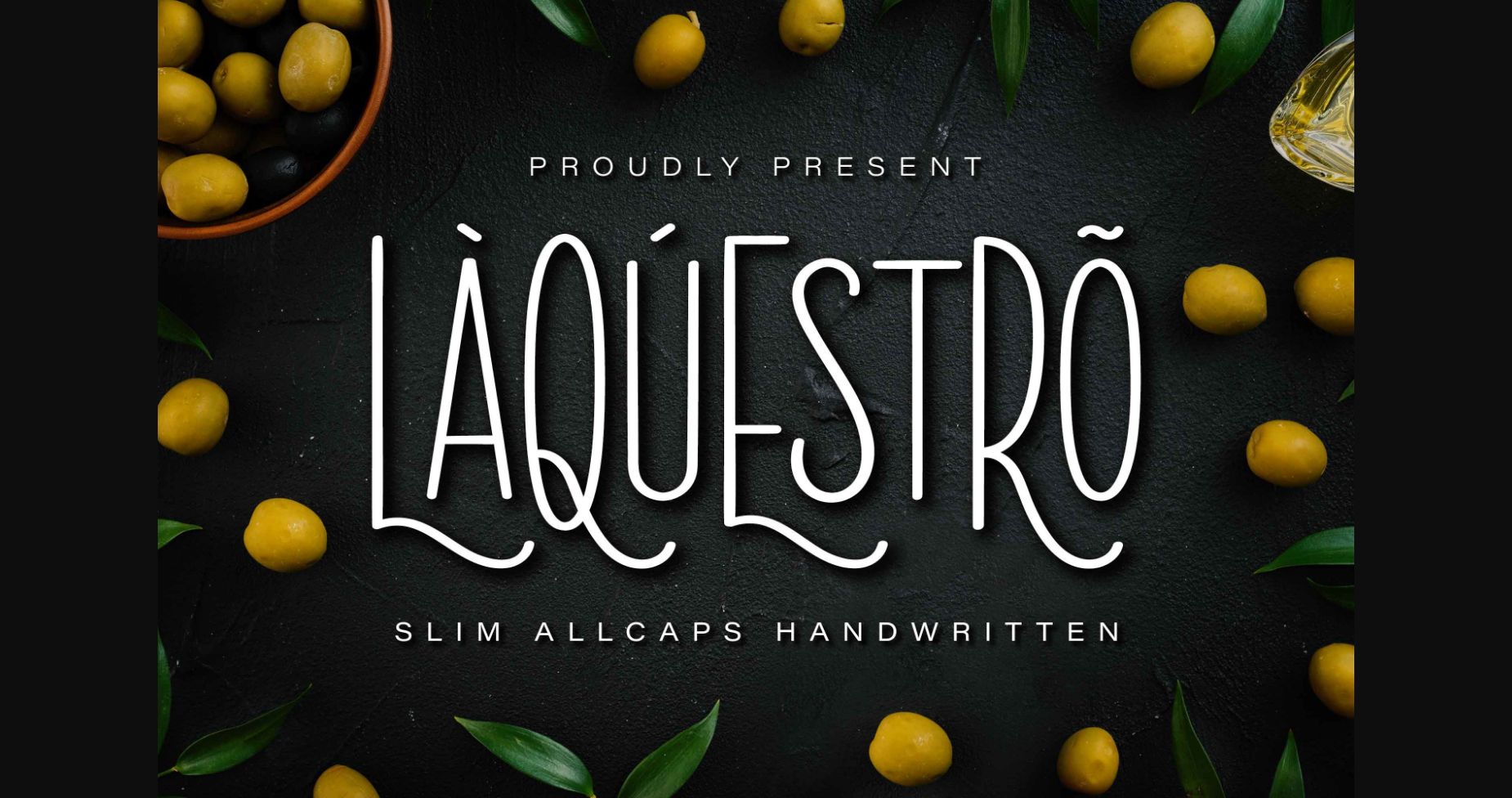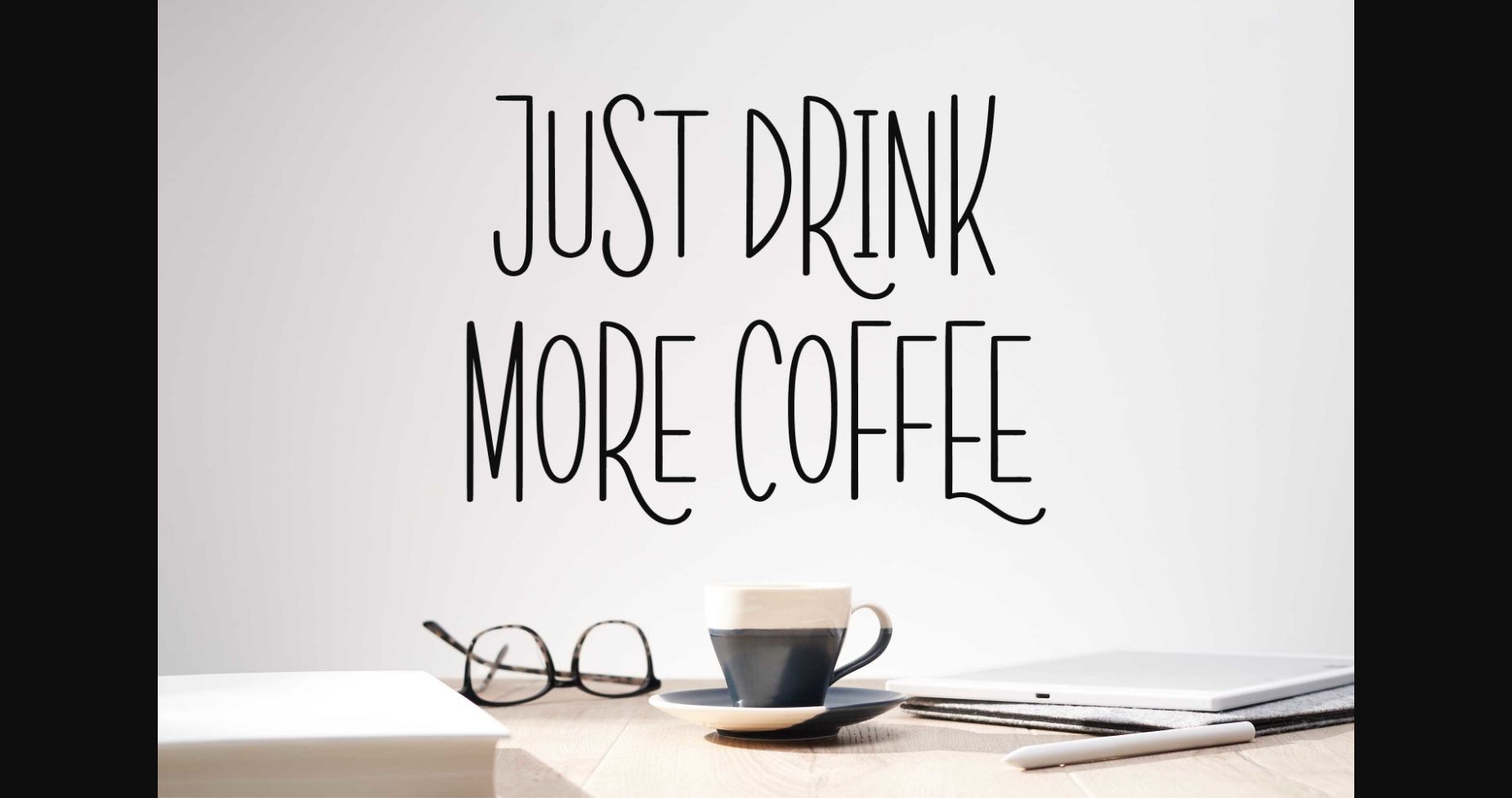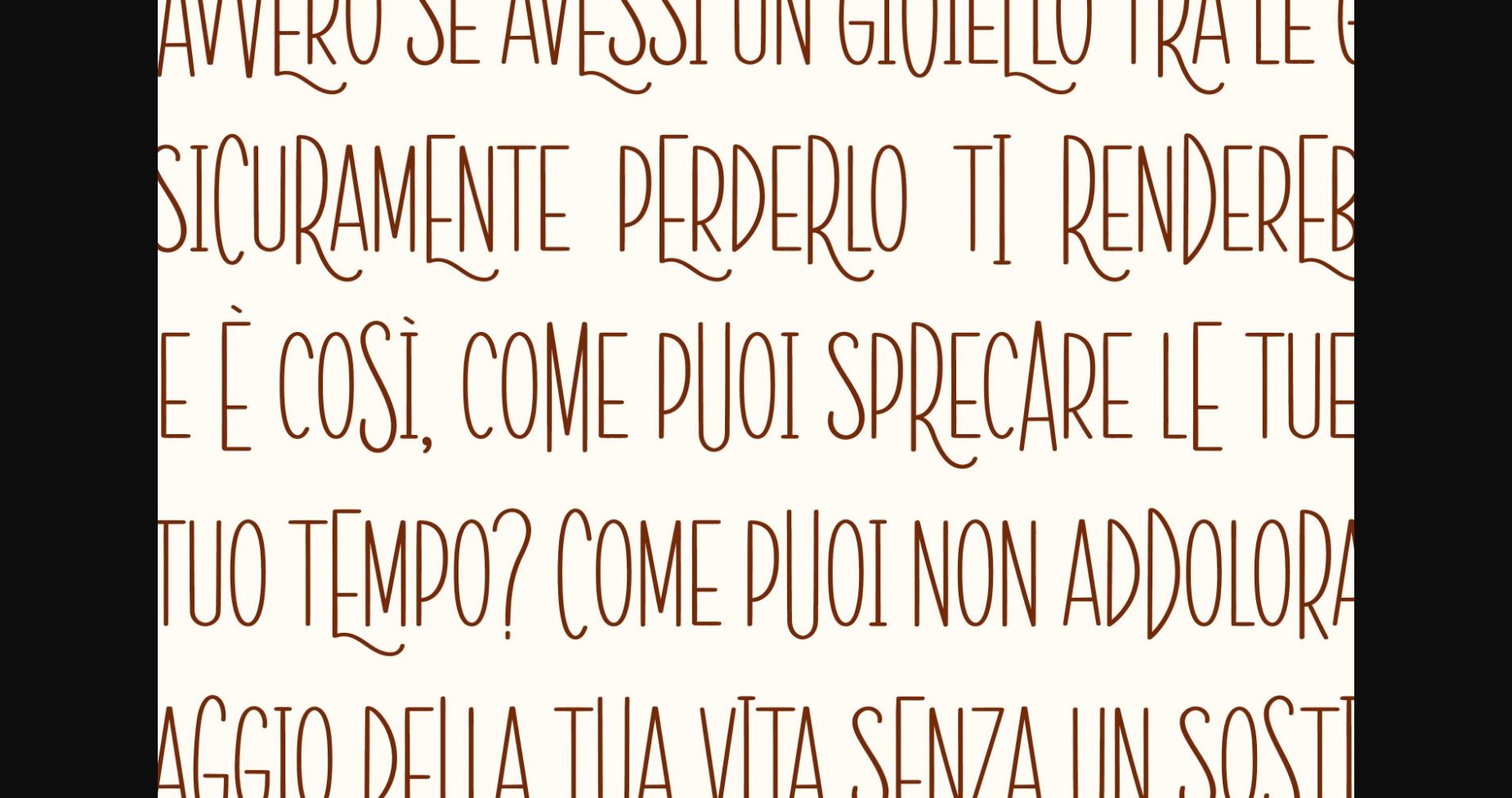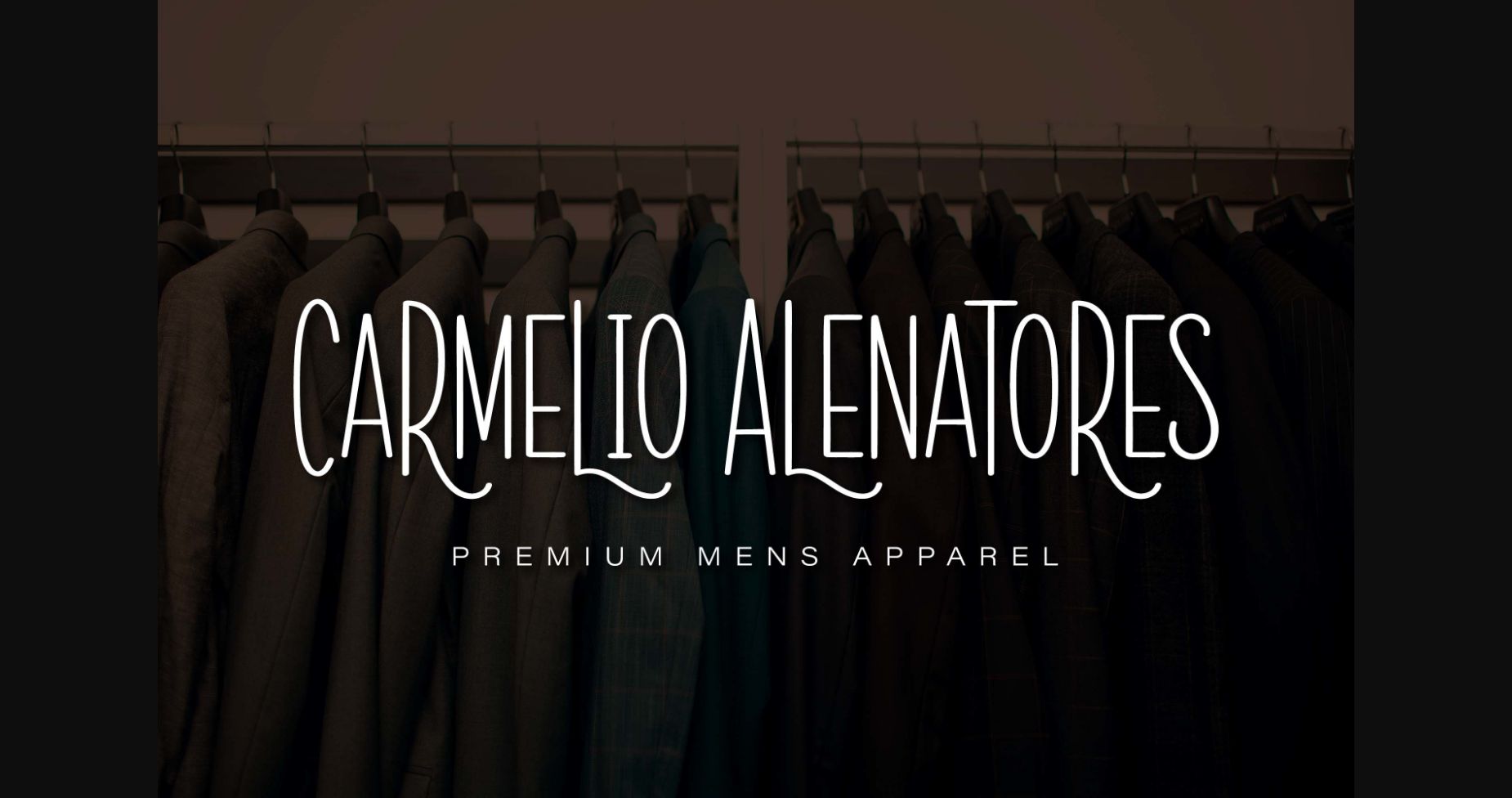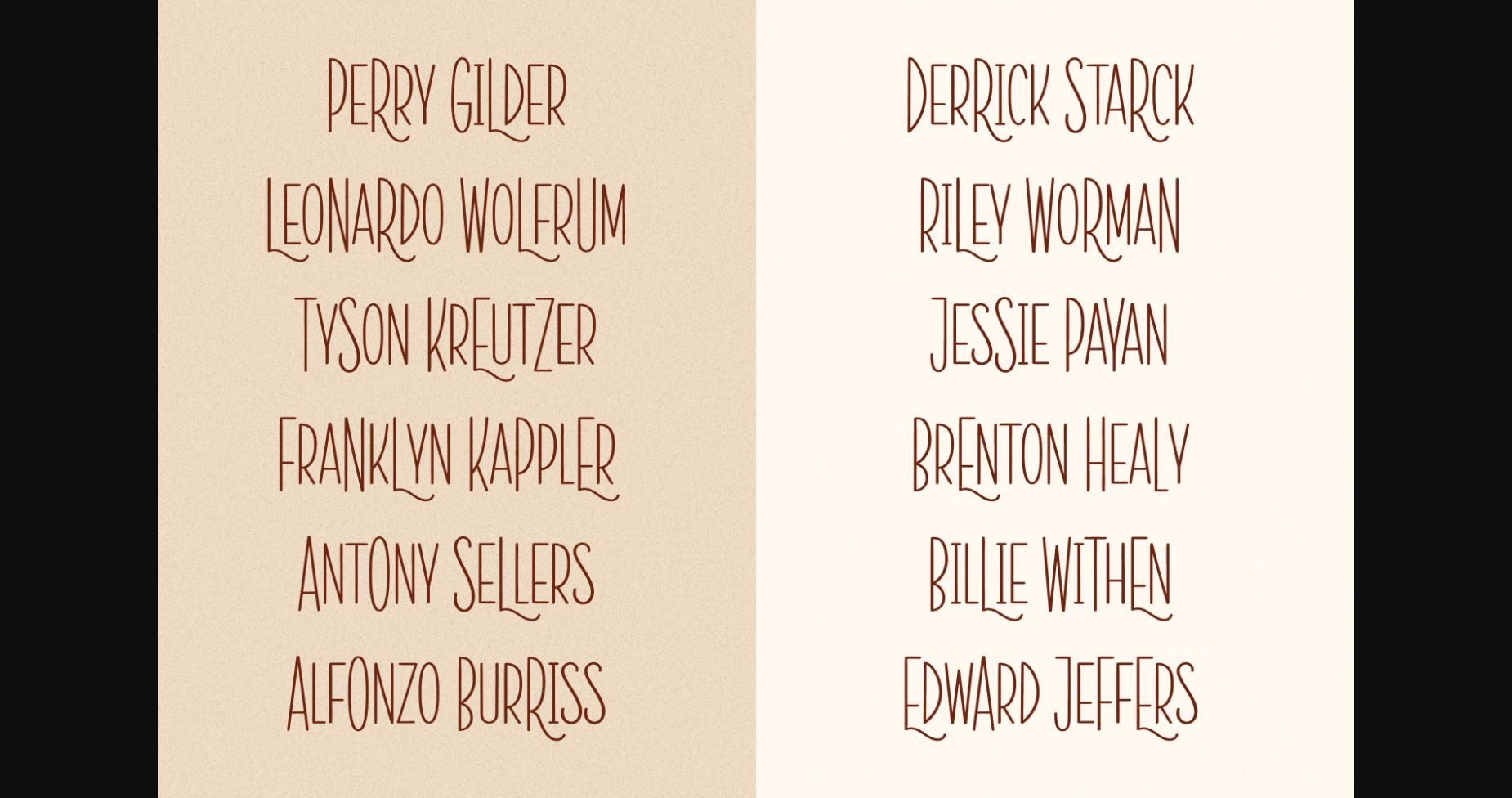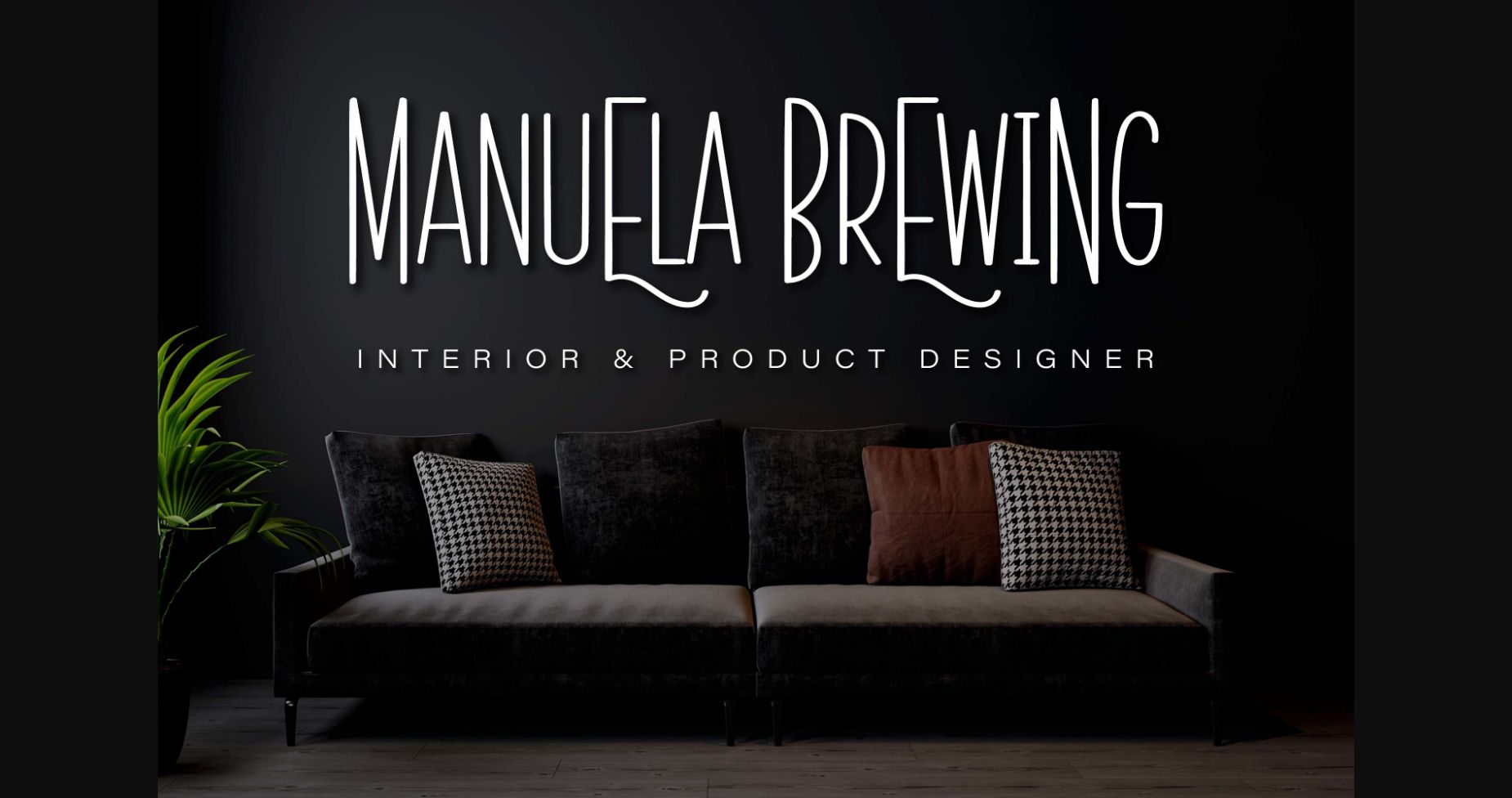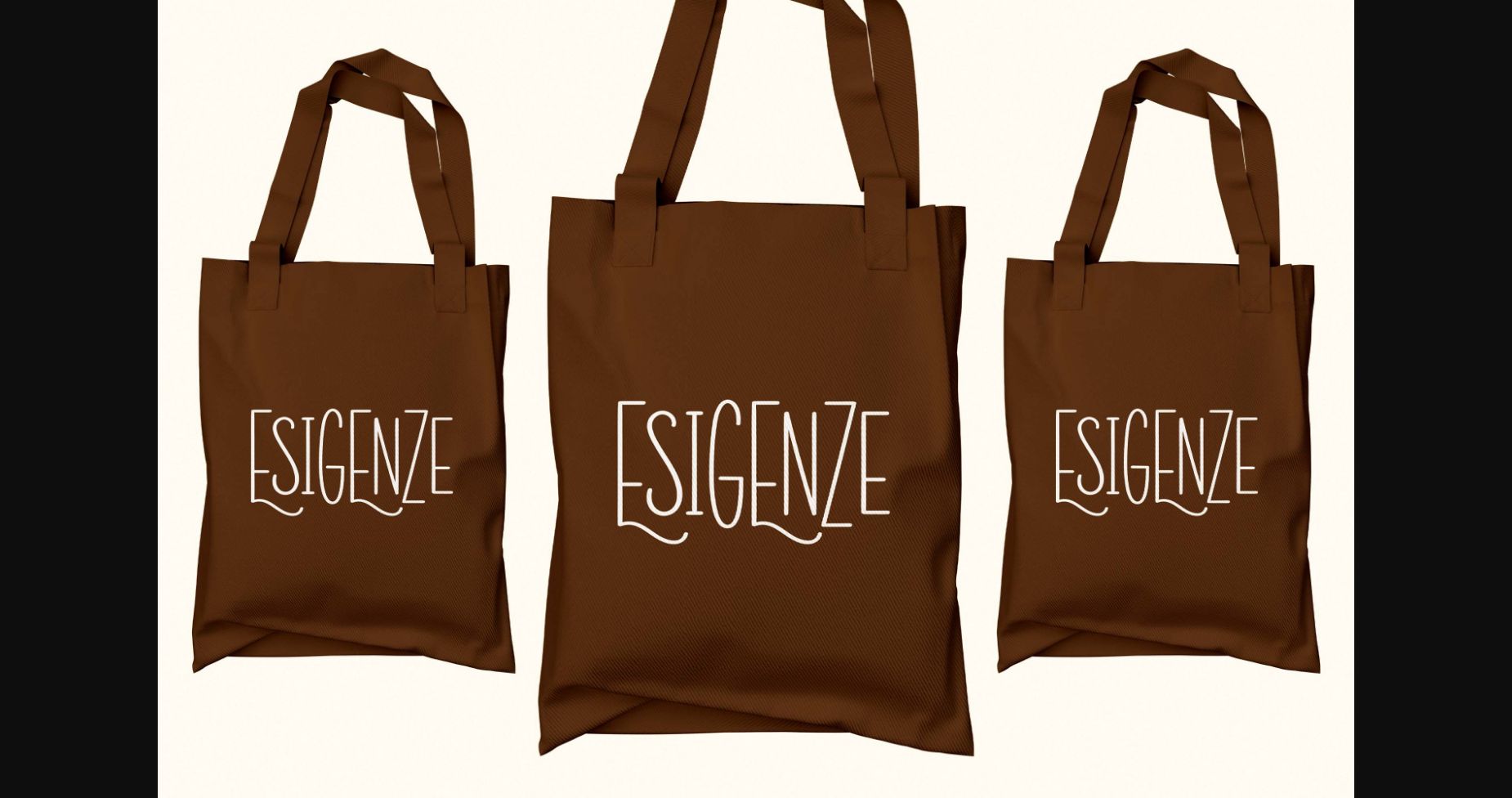
La Questro Font
About La Questro Font
La Questro is a handwritten sans serif font that has a unique and luxurious style, suitable for personal or corporate branding. This font is a perfect match for various design projects such as posters, print ads, digital ads, headlines, t-shirts, crafts, and so on.